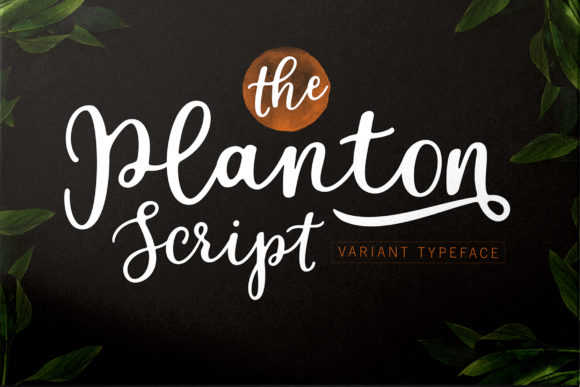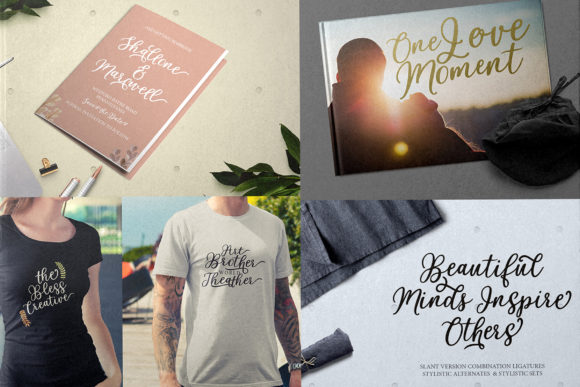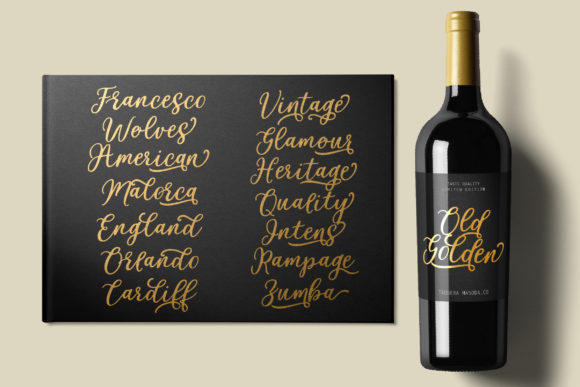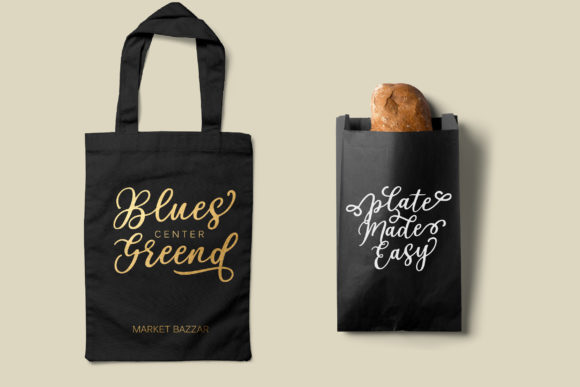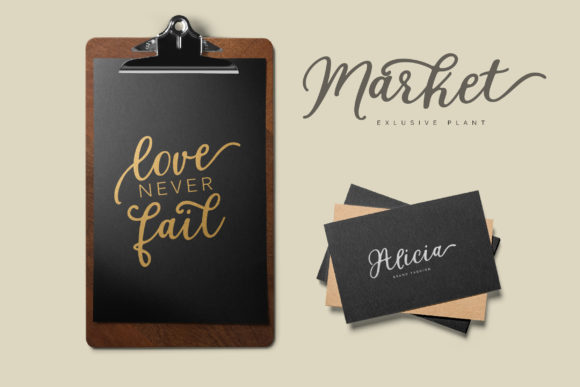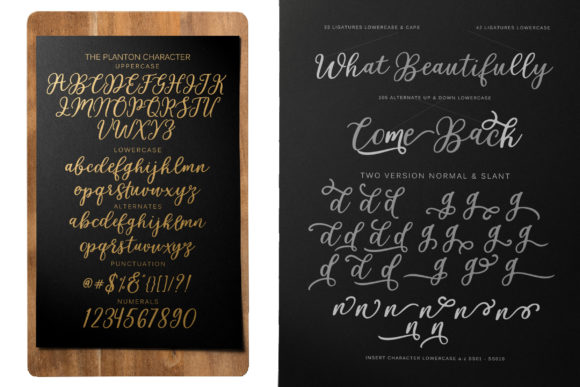
Planton Script Font
About Planton Script Font
Planton Scrip is a new script font with hand-lettered characters.
This font is perfect for various purposes such as title, signature, logo, wedding invitations, t-shirts, letterhead, signage, labels, newsletters, posters, badges, etc.